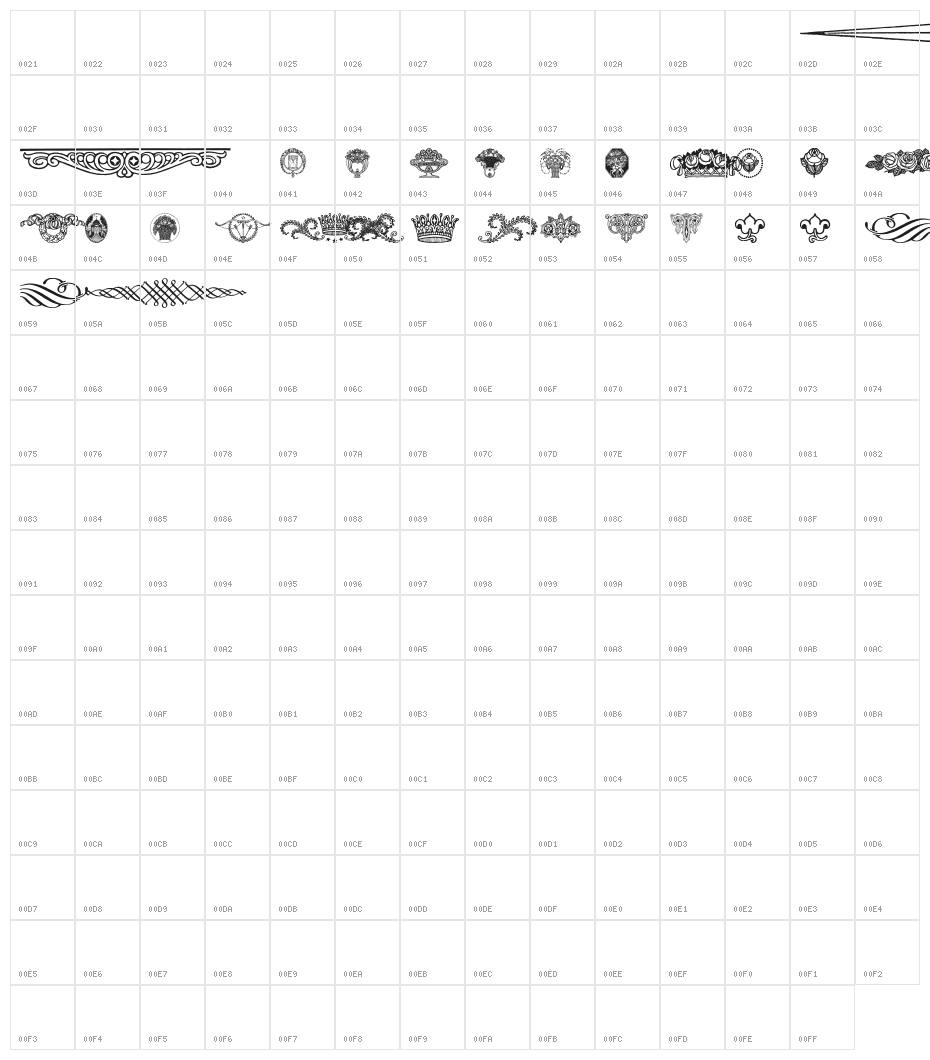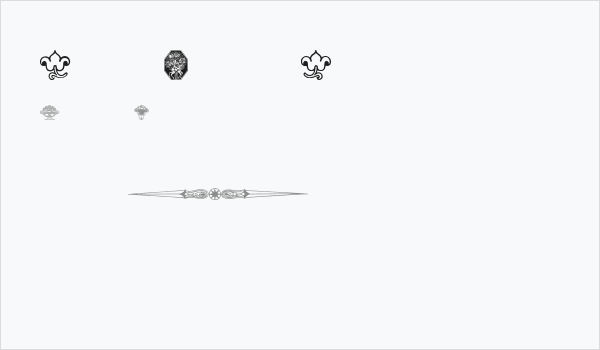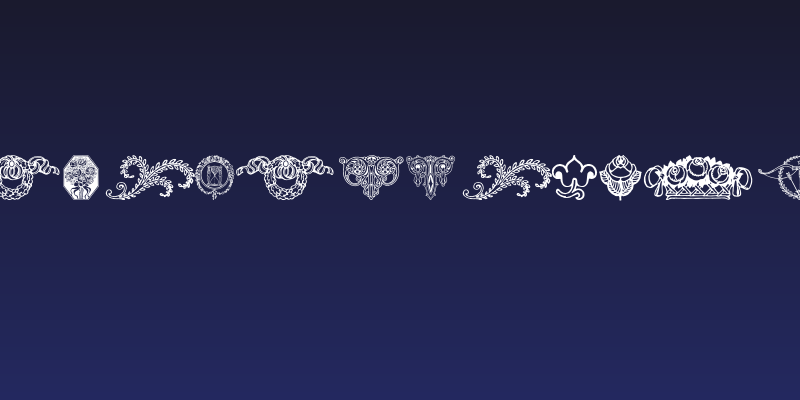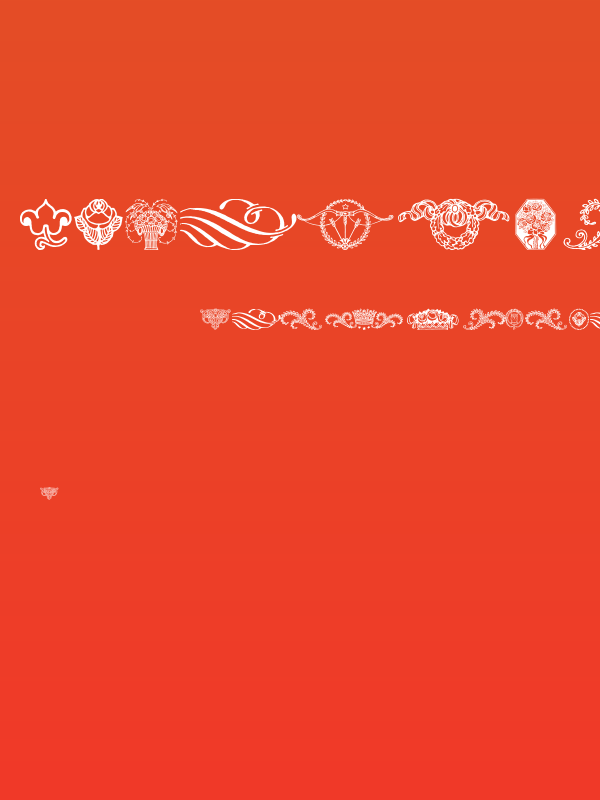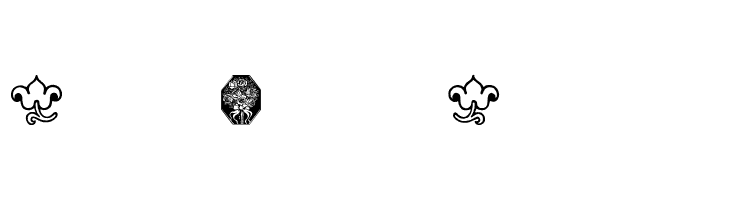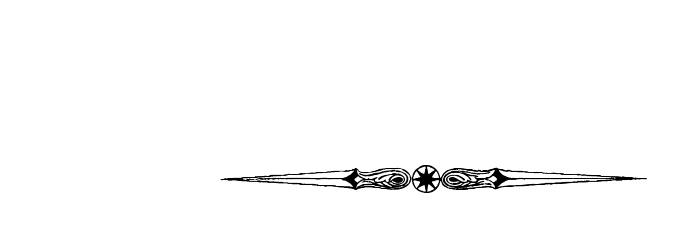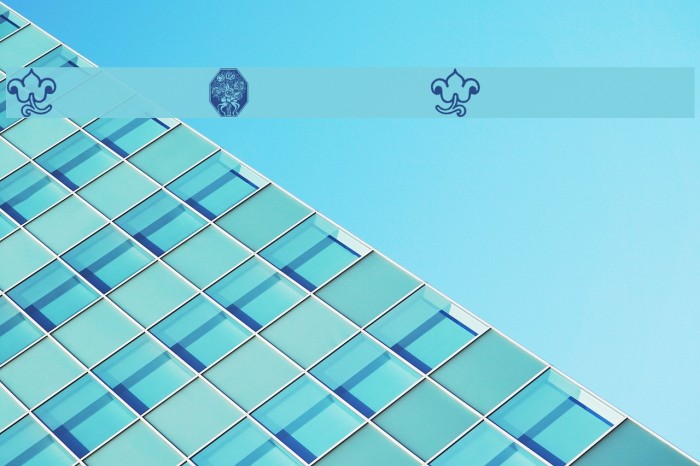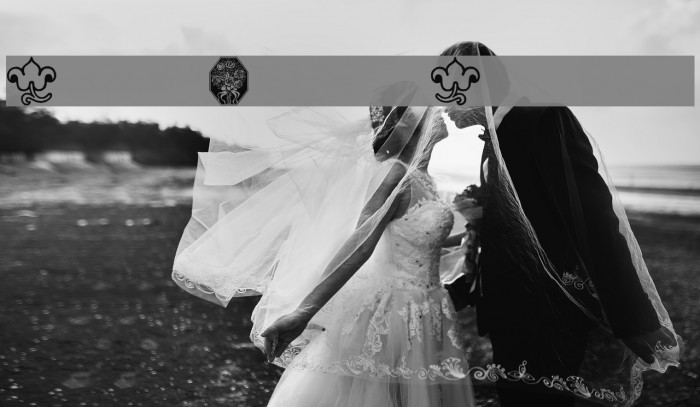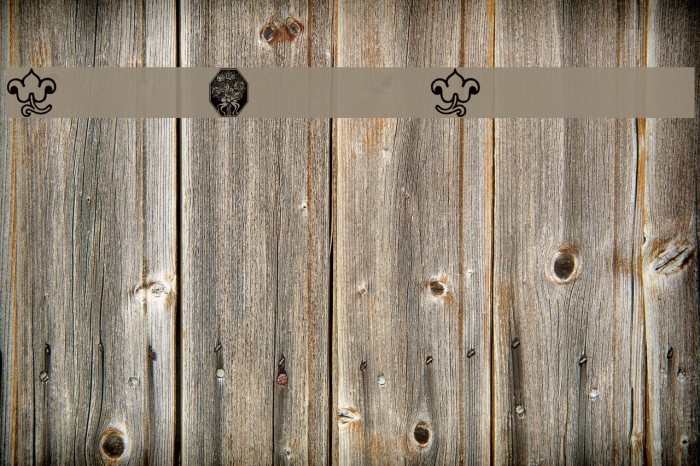
WieynkFrakturVignetten Font
WieynkFrakturVignetten Description
This collection of ornate vignettes features intricate designs reminiscent of classic and historical motifs. Each element is crafted with attention to detail, showcasing elaborate floral patterns, crowns, and decorative flourishes. The designs are symmetrical and balanced, making them ideal for embellishing documents, invitations, or certificates. The style is distinctly vintage, with a nod to traditional craftsmanship and elegance.
| Overall Style | Vintage |
| Use Case | Decorative elements for invitations, certificates, and vintage-themed designs. |
| Proposed Projects | Ideal for use in wedding invitations, historical document reproductions, decorative borders for certificates, and vintage-themed graphic design projects. |